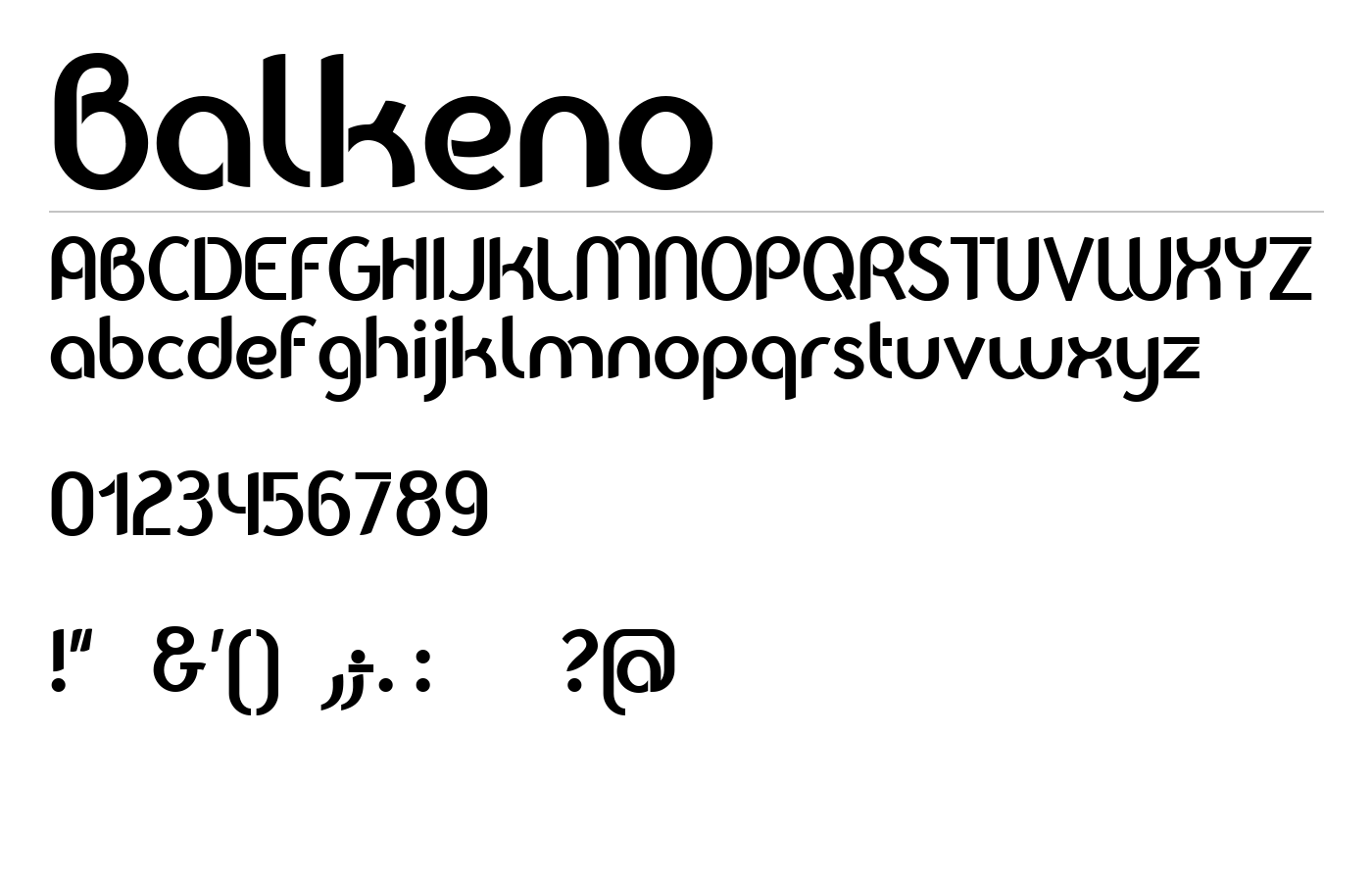
Balkeno is a distinctive sans serif font featuring a modern, geometric style with playful, rounded shapes and unique letterforms that blend soft curves with sharp edges. Its medium weight and compact width give it a contemporary, approachable personality, making it ideal for creative branding, headlines, and editorial designs seeking a fresh and stylish look. This font’s unconventional details and clean lines make it stand out in logos, posters, and digital media where originality and readability are key.
Balkeno Font
About Balkeno Font